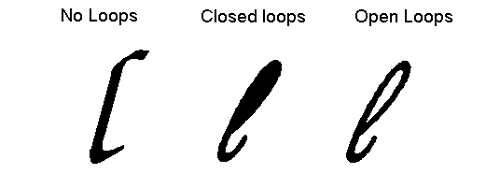
3.0 Latin Hand Written
3.1 Family Kind
Sub-digits
0-Any
1-No Fit
2-Latin Text
3-Latin Hand Written
4-Latin Decorative
5-Latin Symbol
Description
Many fonts are clearly scripts and unrelated to any book face. On occasion, though, the distinction gets rather vague. A good rule of thumb is that if the cursive font is part a family that includes a book face, then it should be classified in the Latin Text group. If it is freestanding with no obvious related book face, then it falls into the Latin Hand Written group. This can be a bit difficult to determine, since a font house may only choose to provide the cursive from a larger family, so the classifier needs to think about the face being processed and not do it purely by rote.
3.2 Tool kind
Sub-digits
0-Any
1-No Fit
2-Flat Nib
3-Pressure Point
4-Engraved
5-Ball (Round Cap)
6-Brush
7-Rough
8-Felt Pen/Brush Tip
9-Wild Brush - Drips a lot
Description
Kind of implement predominately used to create character forms. A flat nib is an inflexible rectangular nib, like a standard calligraphy pen nib, whose line width is dependent only on the angle of the edge of the nib with respect to the line. A pressure point is a flexible point, like those used to do copperplate lettering, which spreads when pressed down upon and forms a wider line. Engraved cursive lettering has many of the characteristics of pressure point, but it also has fine added lines that could only be made with a graver. Ball is the type of line produced by a ball point pen or similar round nib. It has a single line weight and convexly rounded stem caps. Brush means a rectangular brush. It looks superficially like a flat nib but has more fluid stroke endings and gentle swellings along strokes as a brush would make responding to pressure. Rough looks like the lettering was done with a rough edged nib or a nib that was too dry or on a rough surface. It is characterized by unpredictable starts and stops within the letter. Felt tip or brush tip looks somewhat like the Ball nib but has the characteristic swellings within the line of a more flexible instrument. Wild brush looks hastily or sloppily done with drips and splatters of ink in unpredictable places. The difference between this and a decorative lettering is often minimal and based on readability and whether there is a full family of letter forms (book, italic, bold, and bold italic).
Examples
Figure 15 - Hand Written Tool Kinds
2 - Flat Nib
3 - Pressure Point
4 - Engraved
5 - Ball
6 - Brush
7 - Rough
8 - Felt Tip / Brush Tip
9 - Wild Brush
3.3 Weight
Sub-digits
0-Any
1-No Fit
2-Very Light
3-Light
4-Thin
5-Book
6-Medium
7-Demi
8-Bold
9-Heavy
10-Black
11-Extra Black (Nord)
Description
The Weight digit classifies the appearance of a font’s stroke thickness in relation to its height. This is expressed as a ratio taken from two measurements on the uppercase E glyph. See Section 2.
Measurements
Two measurements are required for classification of the Weight digit.
CapH
CapH (Figure 2)is the cap height and is measured on the uppercase H, from the top-most Y-extent to the bottom-most Y-extent at the theoretical midline of the left vertical stroke. The midline is chosen to avoid serifs that extend the height or depth of the character shape. This is a vertical measurement even if the glyph is italic or oblique.
WStem(E)
The width of the vertical stem, WStem(E) (Figure 5), is measured horizontally on the uppercase E at a point halfway between the upper two arms. This measurement is the width of the vertical stem, or back bone, of the character and is taken perpendicular to the stem. In the case of an oblique letter, the horizontal axis is shifted to be perpendicular to the stem. Note: For the purpose of serif designs, this measurement is applied to the large (400 point) uppercase I glyph.
Calculated Variables
Only one calculated variable (WeightRat) is used to determine the Weight digit for the PANOSE Typeface Matching System. The WeightRat variable is calculated by dividing the cap height by the width of the vertical stem.
WeightRat = CapH / WStem(E)
Classification
To determine the exact PANOSE Weight digit, round the WeightRat value to two decimal places and match it in the following table:
0-Any
1-No fit
2-Very Light….……WeightRat ³35
3-Light……….18 £ WeightRat < 35
4-Thin……….10 £ WeightRat < 18
5-Book………7.5 £ WeightRat < 10
6-Medium……5.5 £WeightRat < 7.5
7-Demi………4.5 £WeightRat < 5.5
8-Bold……….3.5 £WeightRat < 4.5
9-Heavy……..2.5 £WeightRat < 3.5
10-Black……..2.0 £WeightRat < 2.5
11-Extra Black…….WeightRat <2.0
Notes
The tolerances of the weight classification have been determined by testing a variety of fonts. While this has provided reasonable averages for the ranges of weights, these will not always directly correspond with a font’s external name. It is not uncommon to have a font that contains the word "Bold" in the name that actually classifies as 7-Demibold.
In addition, certain families that have a surplus of font weights may not progress smoothly through the differing classification options. It is, however, rare that two fonts within the same family will have two weights that exist in the same classification category. Notify Hewlett-Packard of any cases where this occurs.
Caution on measurements: When measuring a design with a highly rounded or bowed inside stem, be certain to calculate the correct theoretical edge for the location of the stem edge. Curved stems can alter the measurements for classification significantly enough to alter the resulting category.
Calculated Variables
XRat = XTall / CapH
Classification
The XRat variable is used to determine the relative size of the lowercase. The table below is used to classify fonts based on the XRat.
Very Low ……………XRat £ 0.40
Low…………….0.4 <XRat £0.50
Medium.………0.50 <XRat £0.66
High……………0.66 < XRat £0.75
Very High………0.75 <XRat